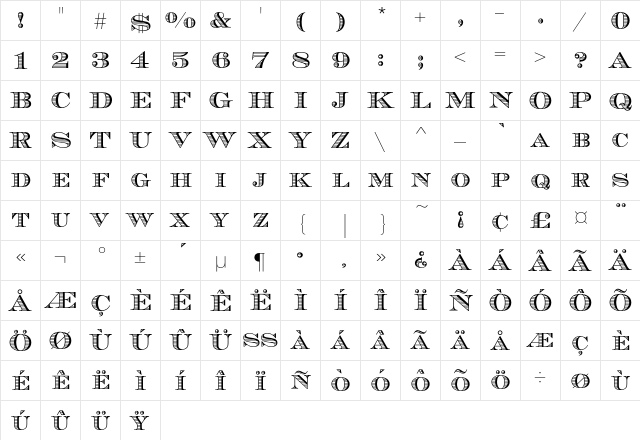
EscorialEF Regular Font Preview
EscorialEF Regular
EscorialEF Regular Font Details
Design Context for EscorialEF Typeface
EscorialEF is a composed and adaptable typeface that performs quietly and consistently across a wide range of design contexts.